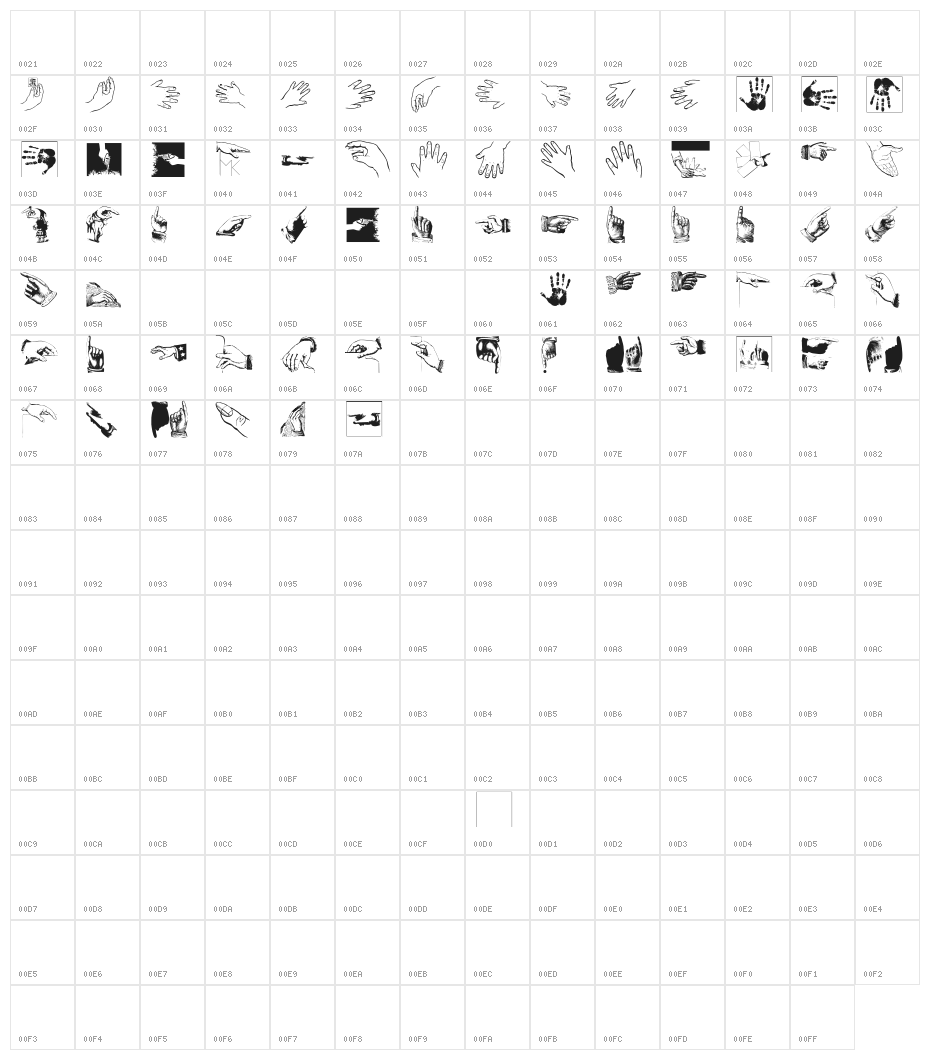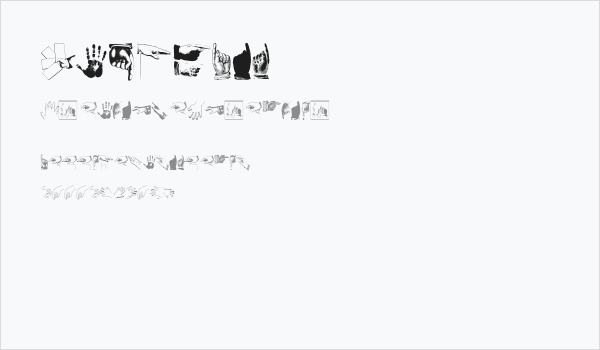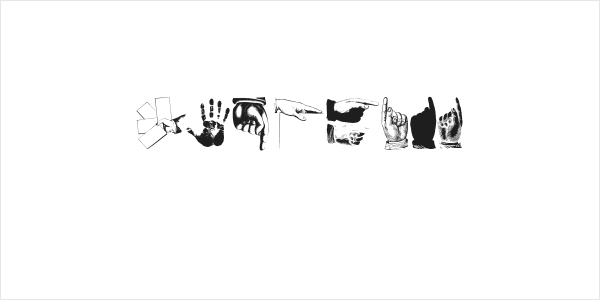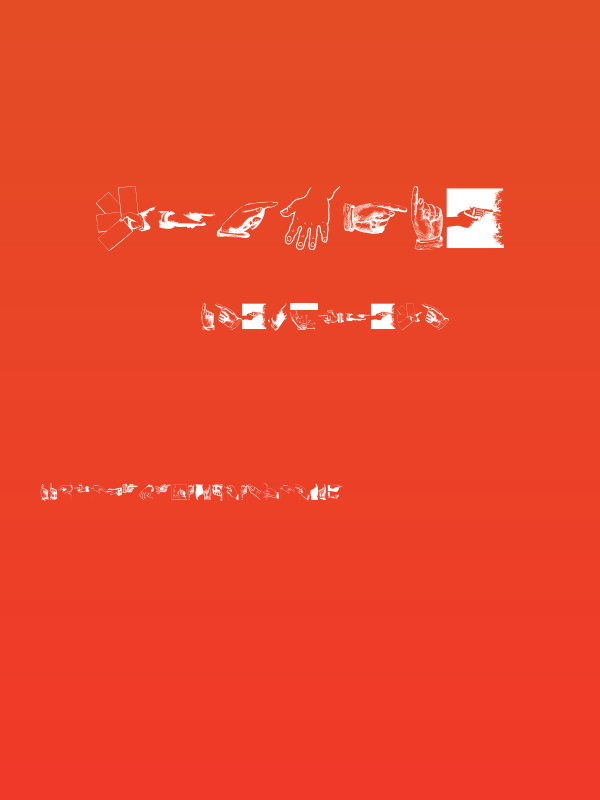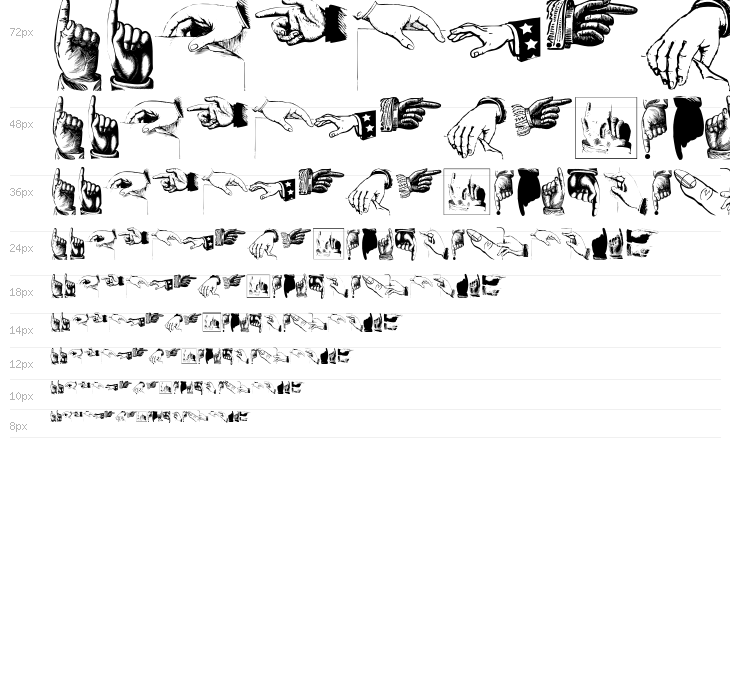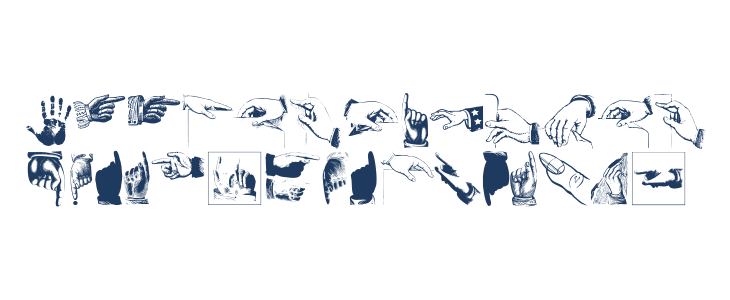
HandsUp Font
HandsUp Description
A decorative display font composed entirely of illustrated hand gestures and hand-drawn hands forming each character, with a playful and artistic style. Each letter and symbol is represented by a unique hand pose, making it highly illustrative and unconventional.
Overall StyleDecorative, Artistic, Playful
Use CaseLogos, Headlines, Posters, Artistic projects
Proposed ProjectsPosters, album covers, creative branding, art projects, event invitations, childrenÒ€ℒs materials.